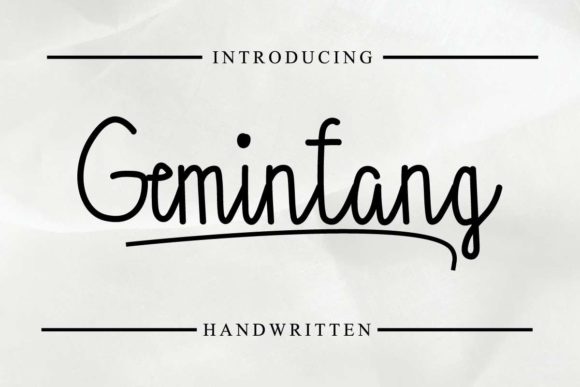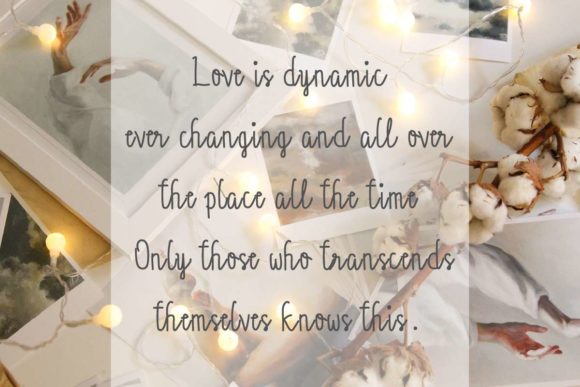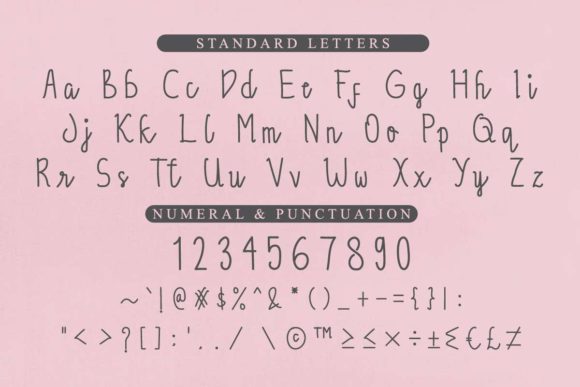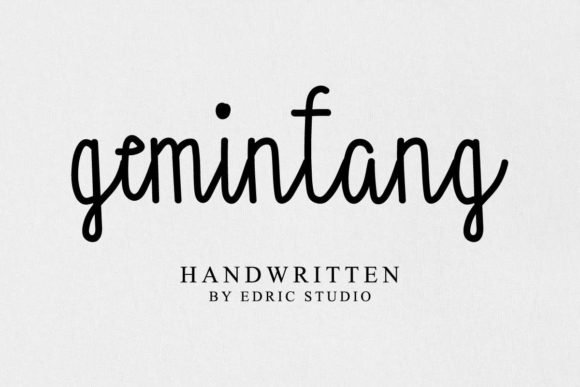
Introduction to Gemintang Font
Gemintang is a gorgeously light and playful script with a unique twist.
Use it to turn any design project into a true standout .
Key Features of Gemintang Font